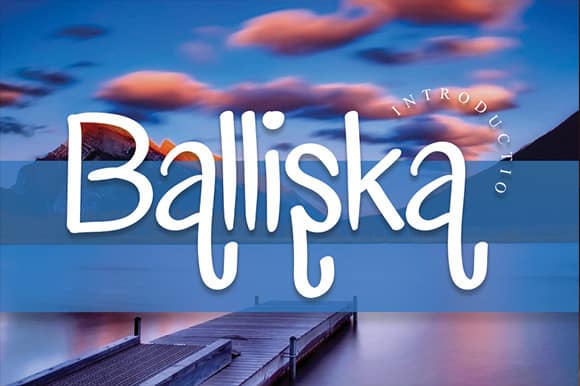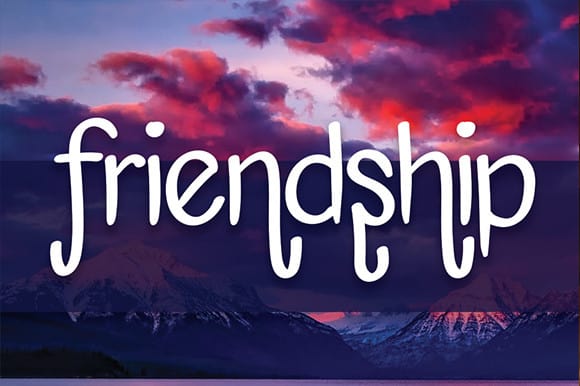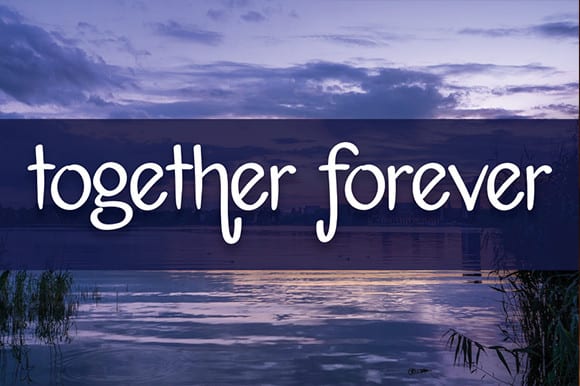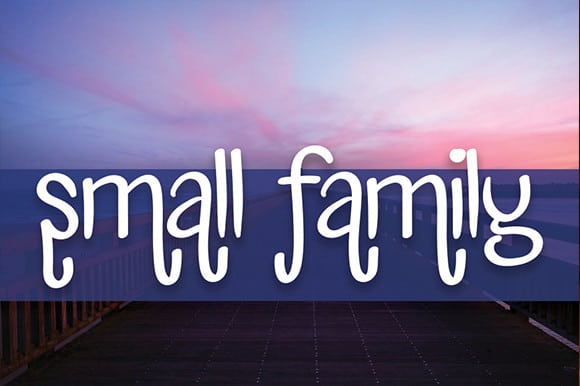
Balliska Handwriting Font – the latest style letters are perfect for wall displays, wedding invitations, social media post logos, advertisements, product packaging, product designs, labels, photography, watermarks, invitations, stationery, and any project that requires taste handwriting.